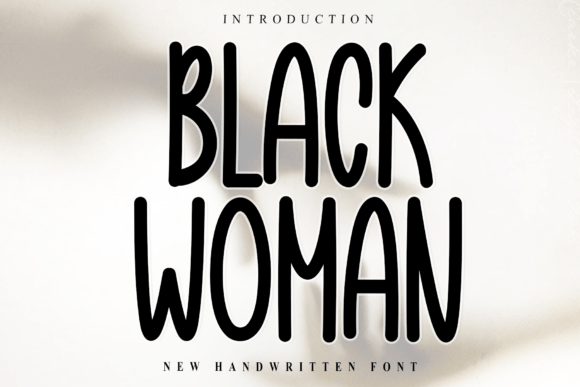
Introducing Black Woman Font: Make a Statement with Confidence
In the world of typography, a font can make or break the visual impact of a design. For designers and crafters looking to create a bold statement, Black Woman Font is here to revolutionize your creative projects. This fresh, new handwritten font is engineered to maximize your layout’s structural presence, making it perfect for those who want to leave a lasting impression.
Breaking Away from Tradition
Black Woman Font breaks away from traditional wide block alphabets, offering a unique and refreshing take on display typography. Its ultra-tall, compressed vertical posture is defined by smooth, rounded corners and solid monoline bars, giving it a distinctive look that’s both modern and approachable. This heavy display font is designed to grab attention and make a commanding, friendly, and high-impact statement.
Key Features of Black Woman Font
• Ultra-tall and compressed vertical posture: Giving your text a substantial visual footprint that’s sure to turn heads.
• Smooth, rounded corners and solid monoline bars: Creating a cohesive and heavily anchored look that’s perfect for modern designs.
• Tight optical tracking: Ensuring that your text feels connected and visually appealing.
• Remarkable legibility: Even over complex background shadows, soft-focus photography, or vibrant patterns.
Black Woman Font is an absolute powerhouse creative asset that’s perfect for a wide range of design projects. Here are just a few ideas to get you started:
• Contemporary tech startup headers: Make a bold statement with your brand’s identity.
• Friendlifestyle product packaging: Add a touch of modernity and approachability to your products.
• Urban clothing brand logos: Create a lasting impression with a bold and eye-catching logo.
• Motivational social media quote layouts: Inspire and motivate your audience with a visually appealing design.
• Modern poster titles: Grab attention and make a statement with your poster designs.
What Sets Black Woman Font Apart
In a world where typography plays a crucial role in design, Black Woman Font stands out from the crowd. Its unique blend of modernity and approachability makes it the perfect choice for designers and crafters looking to create a bold statement. Here are just a few reasons why Black Woman Font is a cut above the rest:
• Unique and refreshing design: Break away from traditional typography and make a lasting impression.
• High-impact visual presence: Make a statement with confidence and grab attention.
• Versatile and adaptable: Perfect for a wide range of design projects, from tech startups to lifestyle product packaging.
Black Woman Font is a game-changer for designers and crafters looking to make a bold statement. With its unique design, high-impact visual presence, and versatility, this font is sure to revolutionize your creative projects. Whether you’re working on a tech startup header, lifestyle product packaging, or a modern poster title, Black Woman Font is the perfect choice. So why wait? Make a commanding, friendly, and high-impact statement with Black Woman Font today!